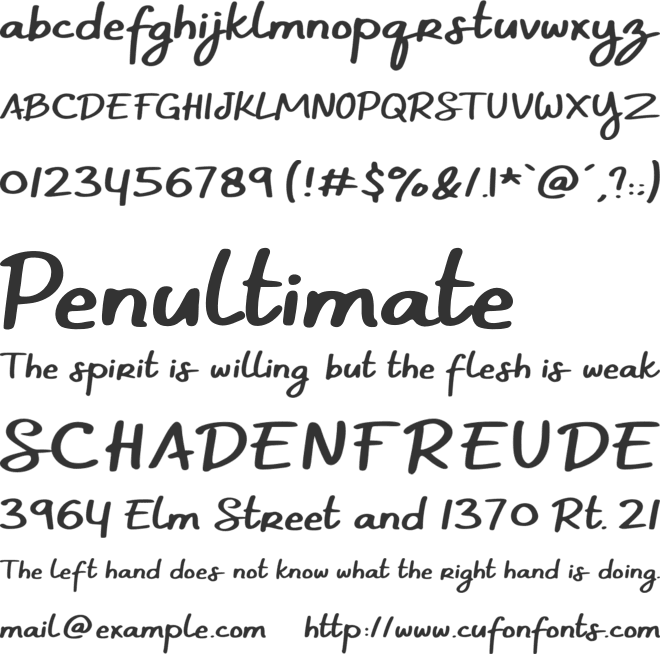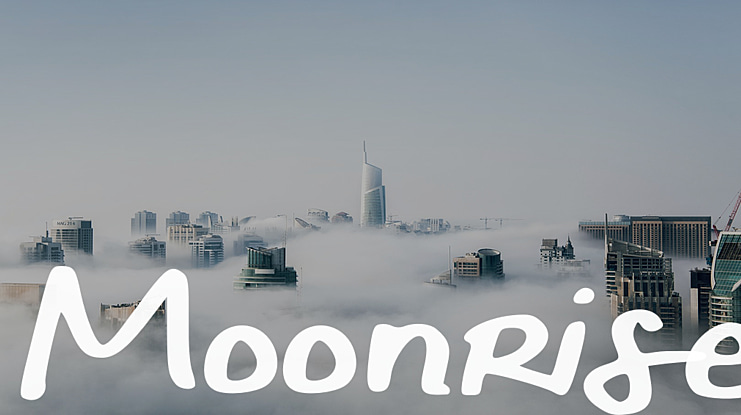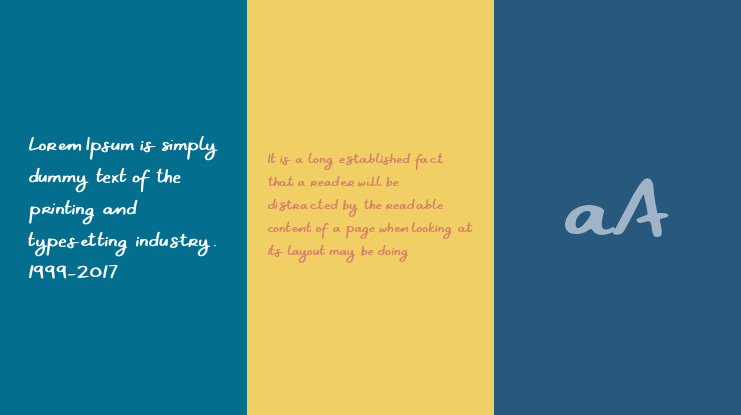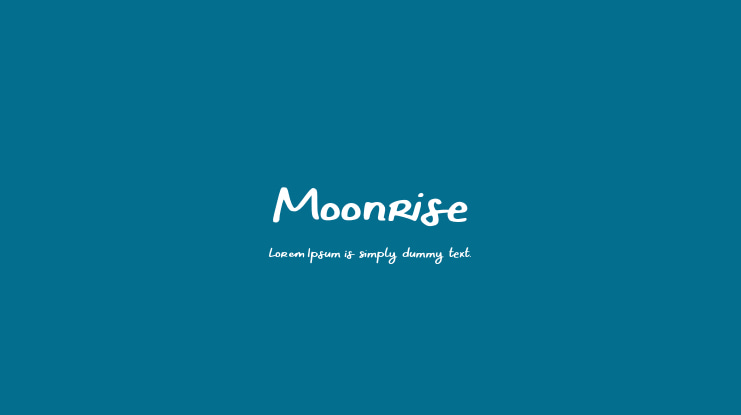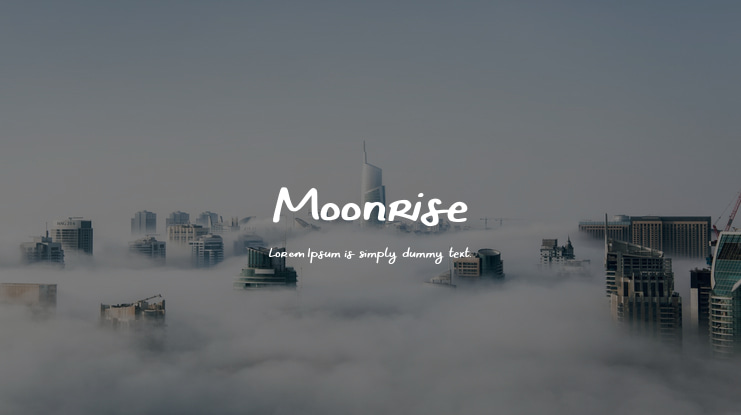
Moonrise Font
Mohammad Wira Hidayatullah
Say hello to "Moonrise" :) A charming and sweet new hand-lettered font perfect for casual type in greeting cards, illustrations, quotes, quaint branding, book covers, children's books, packaging and so much more :)Moonrise have some pretty ligatures built into their OpenType features - make sure you have your ligatures turned on to get their benefit :)Follow my shop for upcoming updates including additional glyphs and language support.If there is a problem feel free to message or contact at : Happy Creating!Wira Studio